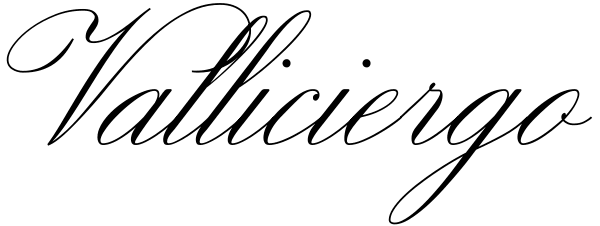
Valliciergo
This font is inspired by the samples of the booklet "Caligrafía inglesa" published in Madrid in the late nineteenth century by the spanish calligrapher Vicente Fernández Valliciergo. Hundred of new glyphs have been added, taking advantage of...